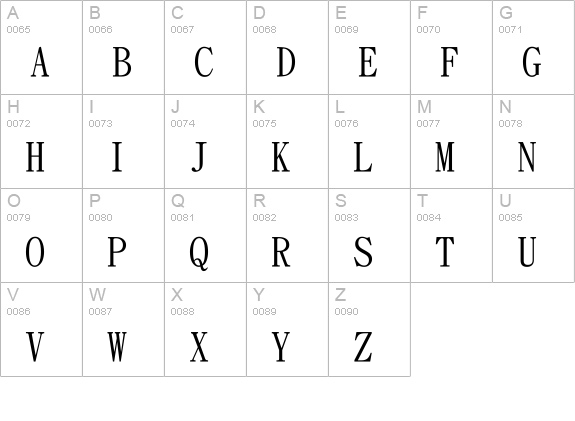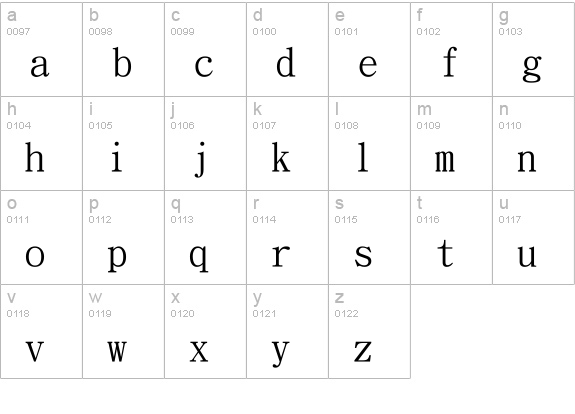
DFKai-SB is a beautifully crafted font that exudes elegance and sophistication. Its intricate strokes and unique character designs make it a standout choice for a wide range of design projects. Whether you're creating invitations, posters, or branding materials, DFKai-SB is sure to add a touch of style and flair to your work. What sets DFKai-SB apart is not only its stunning aesthetics but also its versatility. This font can seamlessly transition from formal to playful, making it suitable for a variety of design needs. With its bold presence and eye-catching details, DFKai-SB is sure to make a lasting impression on any audience. Best of all, DFKai-SB is completely free to download at FontsMarket.com. This means that you can access this exceptional font without any cost, making it a valuable addition to your design toolkit. Don't miss out on the opportunity to elevate your projects with the timeless beauty of DFKai-SB. Download it today and let your creativity soar.